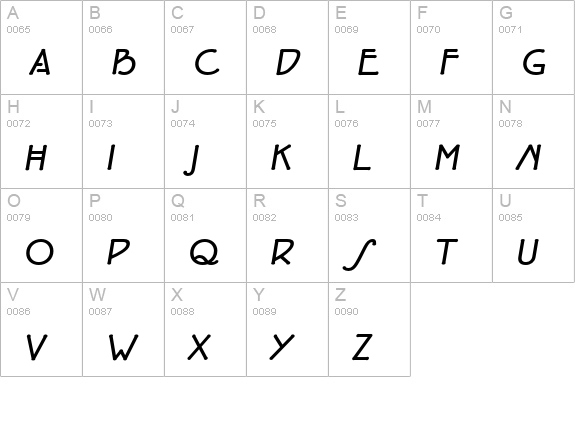
P22Eaglefeather-BoldItalic Font Details
P22Eaglefeather-BoldItalic is a bold and italic font that exudes a sense of elegance and sophistication. Its unique design combines the strength and boldness of a thick stroke with the graceful slant of italics, creating a harmonious balance that is both eye-catching and versatile. This font is perfect for projects that require a touch of boldness and a hint of creativity. Whether you're designing a logo, creating a poster, or crafting a stylish invitation, P22Eaglefeather-BoldItalic will add a touch of sophistication to your work. One of the most appealing aspects of this font is that it is freely available to download at FontsMarket.com. You can easily access this font and incorporate it into your projects without any hassle. With its high-quality design and freely accessible nature, P22Eaglefeather-BoldItalic is a font that caters to both professionals and enthusiasts alike. So, if you're looking for a bold and italic font that combines elegance, strength, and creativity, look no further than P22Eaglefeather-BoldItalic. Download it for free at FontsMarket.com and elevate your designs to new heights.